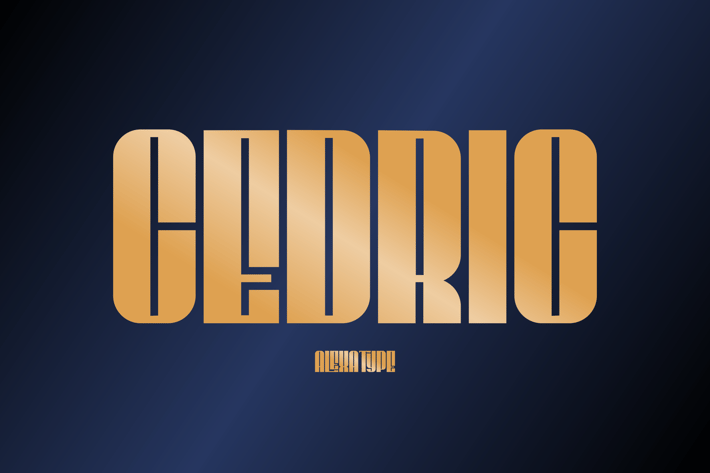
CEDRIC - Classy Condensed Font
CEDRIC - classy condensed font
CEDRIC is a luxury and elegant font that stand tall and on a higher ground than the rest.
It brings a classy touch with it sharp and bold statement. The symmetrical distance between letters, it's so good...
Perfect for your elegant projects
CEDRIC is a luxury and elegant font that stand tall and on a higher ground than the rest.
It brings a classy touch with it sharp and bold statement. The symmetrical distance between letters, it's so good...
Perfect for your elegant projects